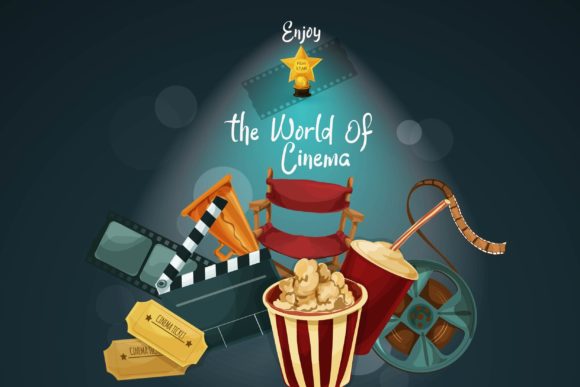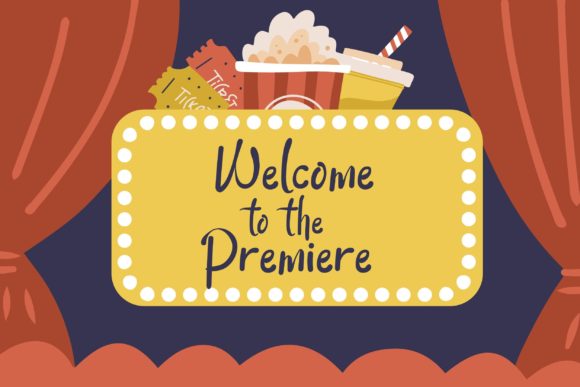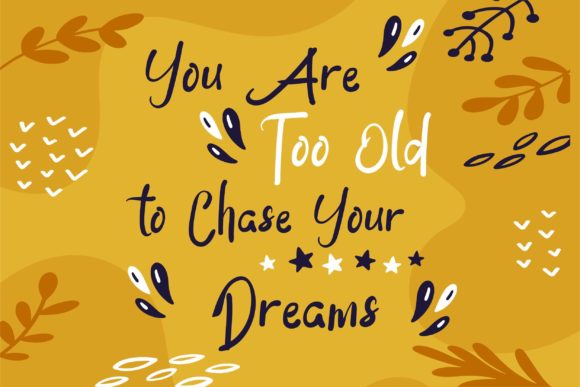
Introduction to Mouselow Font
Have you ever found yourself stuck in a creative rut, scrolling through design resources in search of the perfect font to bring your project to life? For many designers, the right font can be the difference between a good design and a great one. This is especially true when it comes to creating a unique and engaging visual identity for a children’s game, cartoon, or other project that requires a touch of whimsy and charm.
Enter the Mouselow Font, a delightful and flowing script font that is sure to capture the hearts of designers and project enthusiasts alike. With its high quality design and free download availability, Mouselow Font has become a go-to resource for creatives looking to add a little extra magic to their projects.
- Unique characteristics include a modern and minimalist design, making it perfect for use in logos, branding, and other creative projects.
Honest Review: Mouselow Font
I recently stumbled upon the Mouselow Font, a design resource that caught my attention due to its unique features. Upon closer inspection, I found that it’s available for free download from a reliable website.
What works well with the Mouselow Font is its high quality and versatility. The font is suitable for a wide range of creative projects, from logos to print materials, thanks to its clean and modern design. I also appreciate the fact that it has a transparent background, making it easy to incorporate into various designs.
- ✨ High-quality design suitable for various creative projects
- ✨ Transparent background for easy integration
However, there are some limitations to consider. The font may not be as extensive as some other options, and it might not be suitable for very large-scale projects. Additionally, the font’s unique design may not be to everyone’s taste.
Overall, I think the Mouselow Font is a great addition to any designer’s toolkit. While it may have some limitations, its high quality and versatility make it a valuable resource for any creative project.
Tips for Getting the Most Out of Mouselow Font
To get the most out of the Mouselow Font, experiment with different font sizes, colors, and combinations to create unique and creative designs. You can also use the font to create a cohesive look by using it throughout your design project.
The Mouselow Font is ideal for a variety of creative projects, including logo designs, business cards, brochures, and social media graphics. Its high-quality design and transparent background make it a versatile and useful design resource.